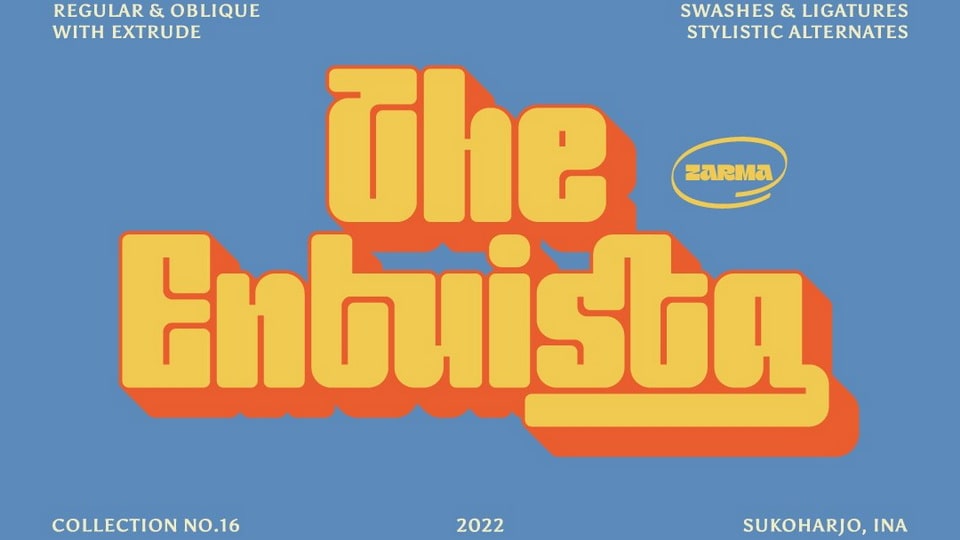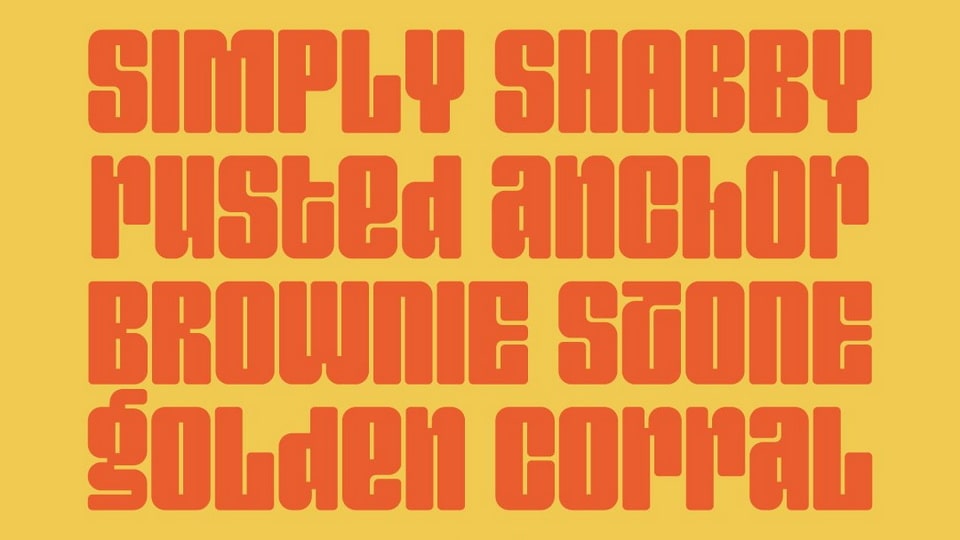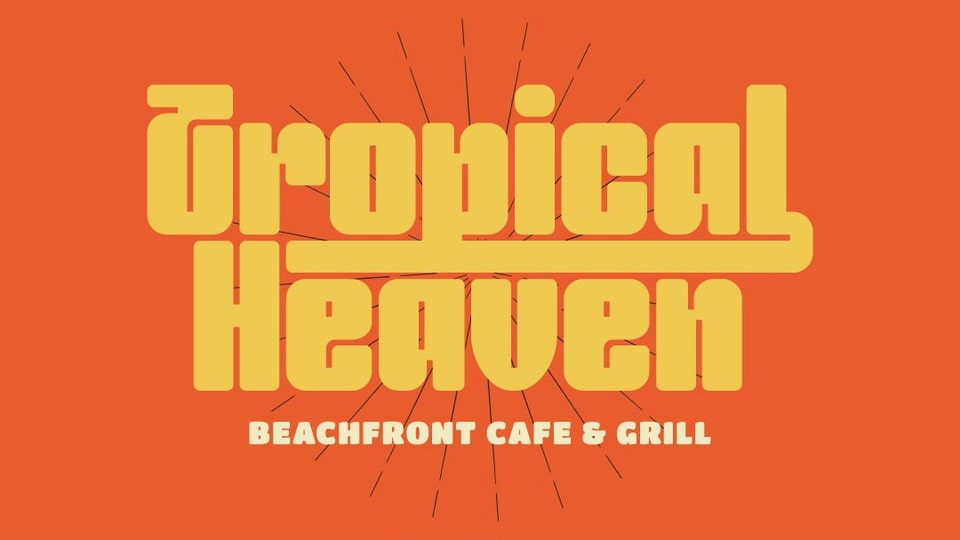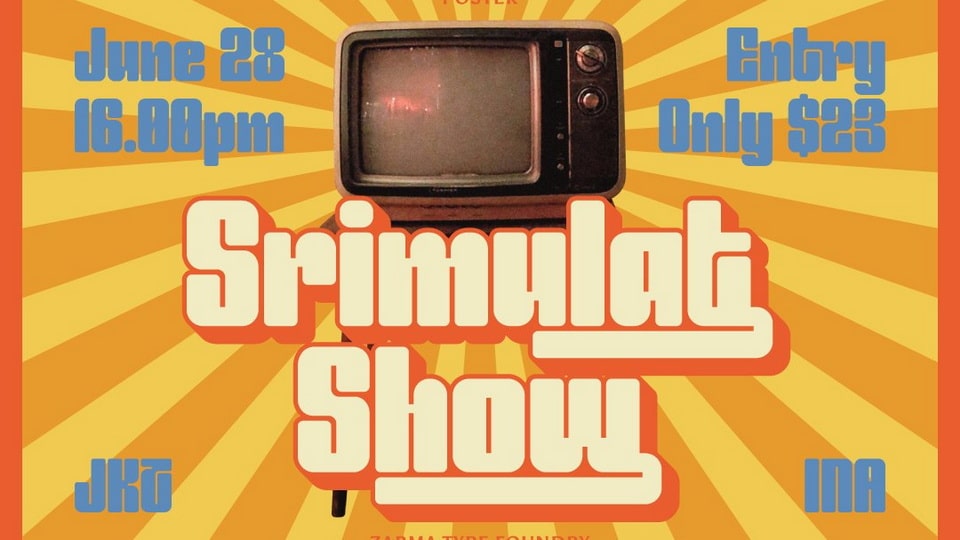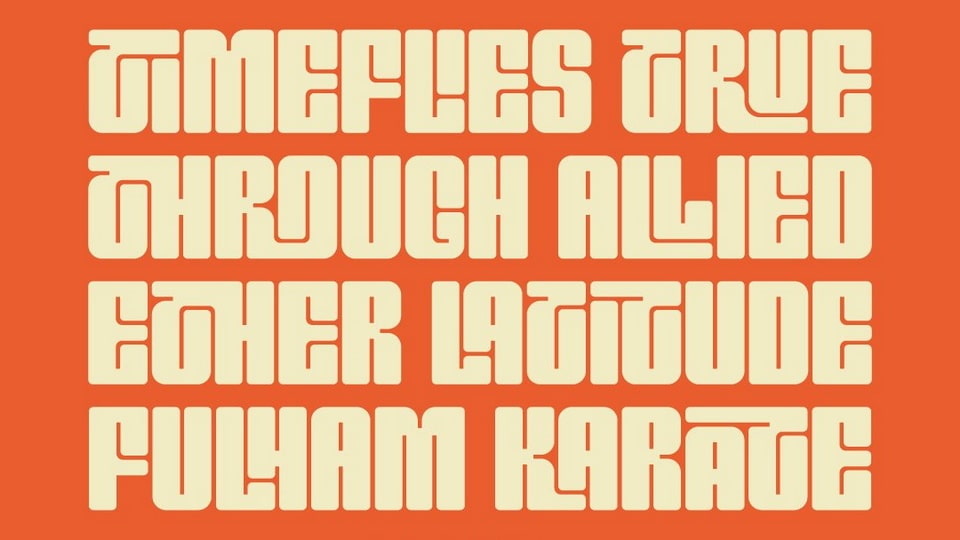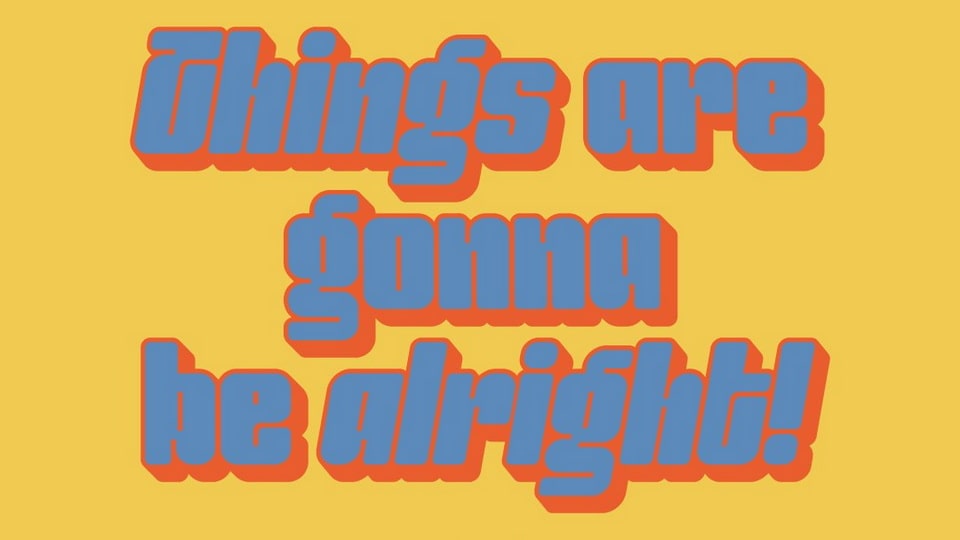
Entuista is a squary and chunky typeface with a touch of unique retro style. It has 2 style font, regular and oblique with extra Extruded Font version on each style.
So you won’t need extra effort for create an extrude effect for this fonts, that means it will save your precious time to make amazing stand out designs.